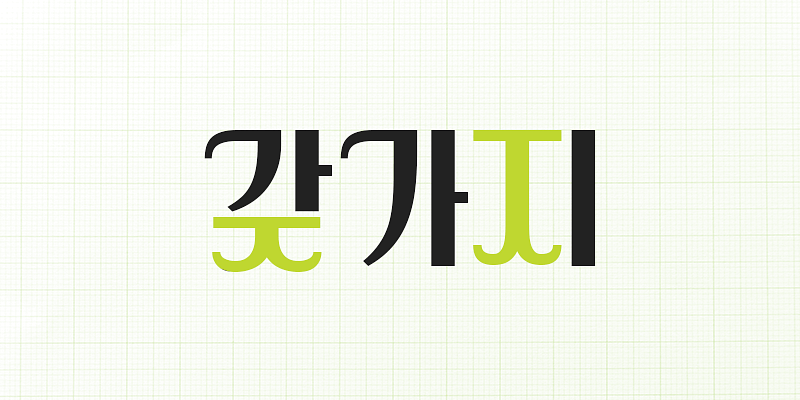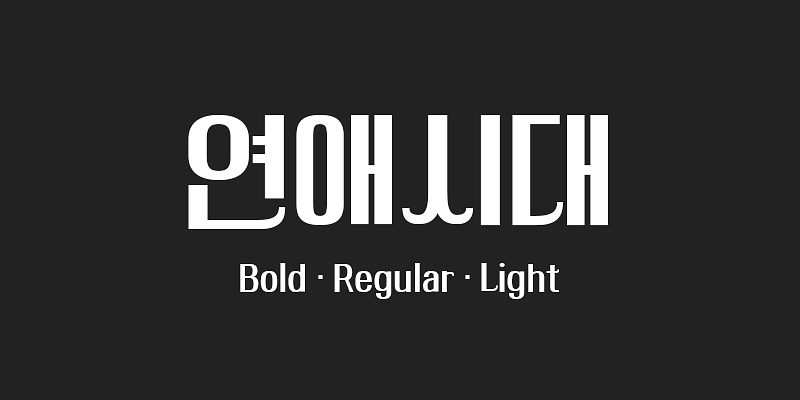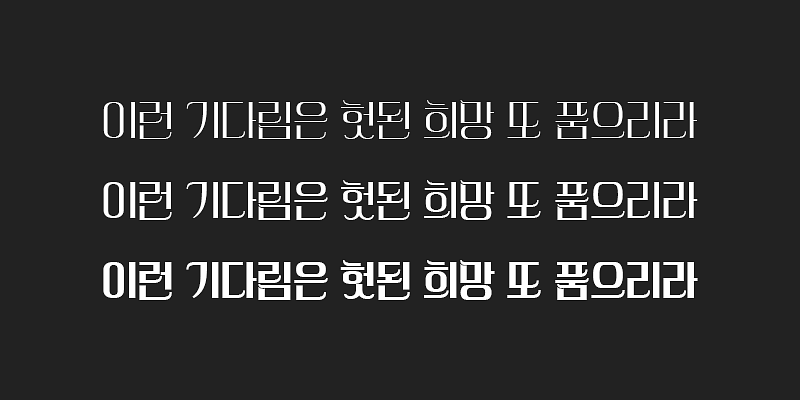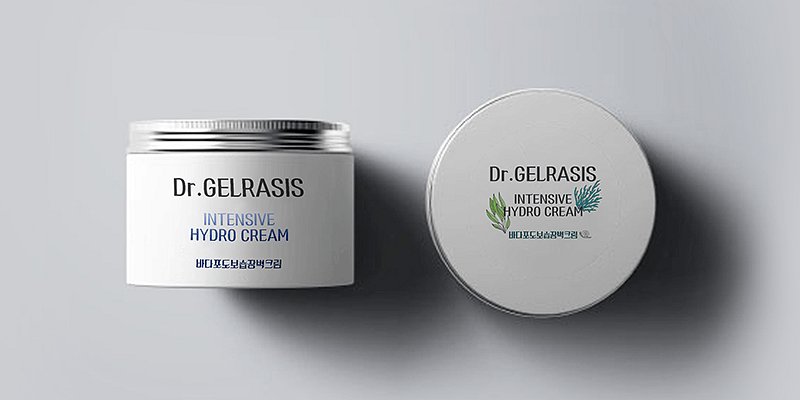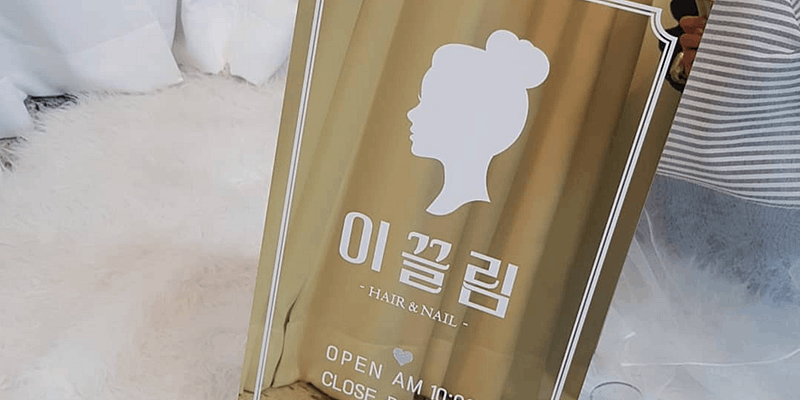
210 Yeonaesidae is a trendy font with a strong contrast between horizontal and vertical strokes. Its characteristic elements evoke an image of a smiling mouth, and the repeated use of curves on the stroke endings gives the font an elegant look.